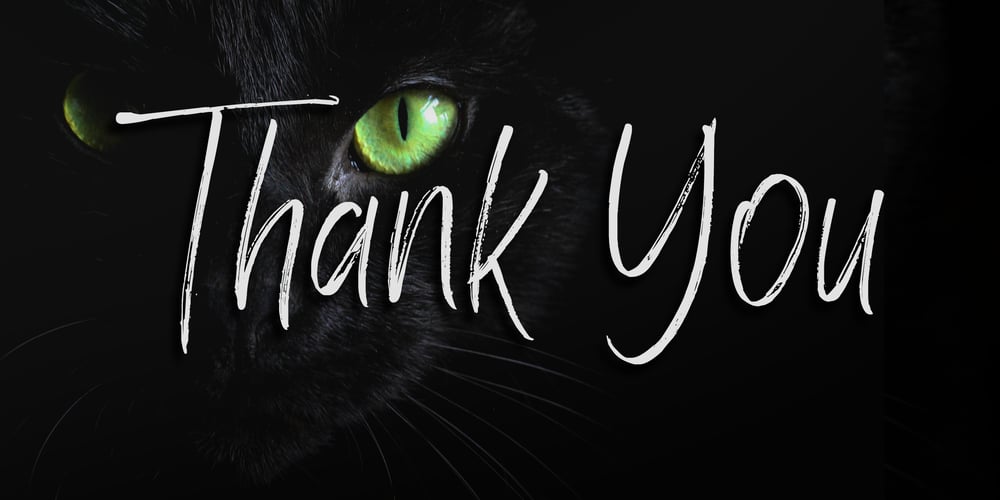
Zolanti Font Family was designed by Yean Aguste and published by HandletterYean. Zolanti contains 3 styles and family package options. Zolanti is a handwritten brush font for those who want a rough looking brush font, and to use it on many kind of design projects like logos, printed quotes, invitations, cards, product packaging, headers, Logotype, Letterhead, Poster, Apparel Design, Label, and etc. This font comes in regular, italic, and underline. It is also complete with multi-language support, numbers, punctuation, and some ligatures are also provided.